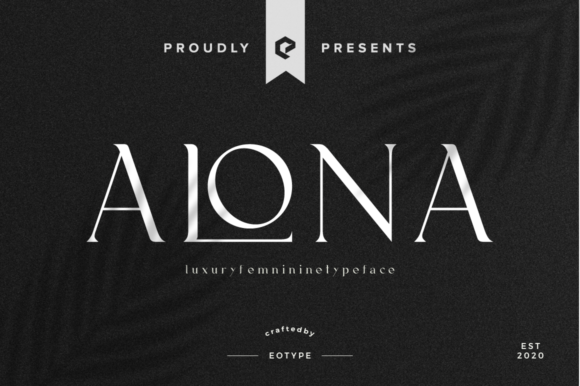
Step into the world of Alona Font, a breathtaking display font crafted by eotype, designed to transform your designs into extraordinary creations. With its refined elegance and captivating ligatures, Alona is the muse you need to bring your artistic visions to life.
Unleash your creativity and let Alona's graceful curves and sweeping strokes elevate your art wall decor to new heights. This font is an artist's dream, offering endless possibilities to express your individuality. Whether you're a seasoned designer or just starting your creative journey, Alona will guide you towards stunning results.
Imagine your designs adorned with Alona's timeless beauty, capturing the attention of all who lay eyes upon them. Its versatility knows no bounds, allowing you to effortlessly create logos, posters, branding materials, and social media graphics that leave a lasting impression.
With Alona as your creative companion, you'll discover a new level of artistic expression. Its elegant lines and harmonious letterforms will weave a spellbinding narrative, captivating your audience and leaving them in awe of your creations.
Harness the power of Alona Font today and unlock a realm of design possibilities. Let your imagination soar as you craft masterpieces that radiate elegance, originality, and timeless appeal.